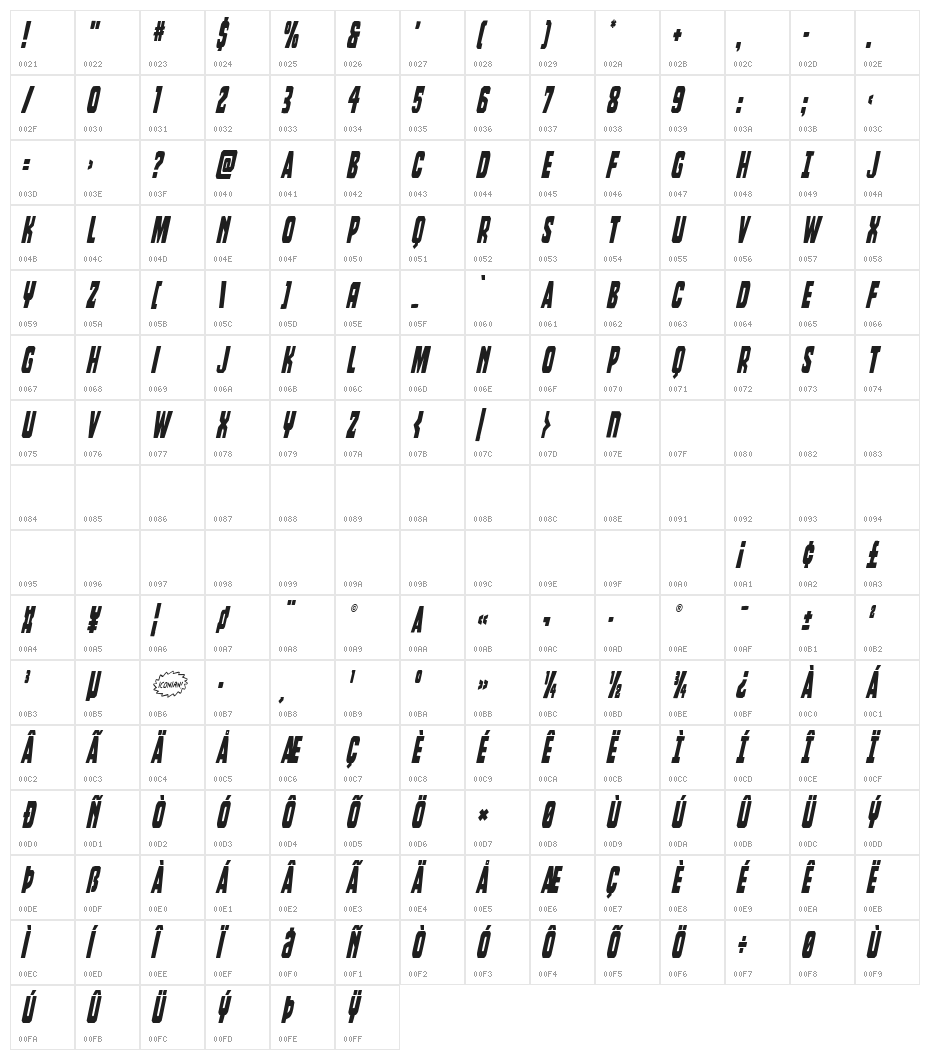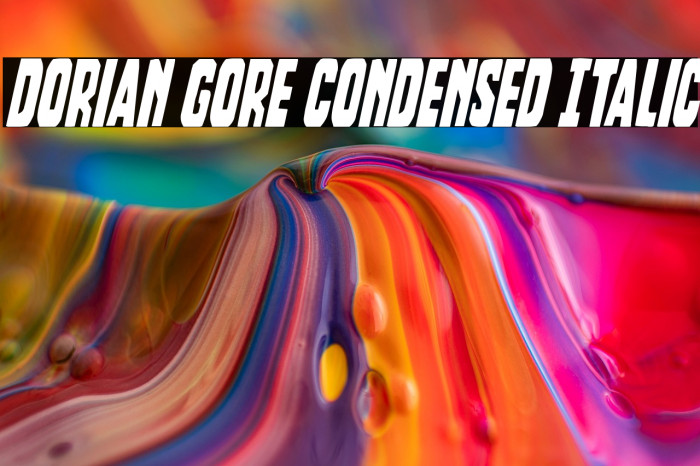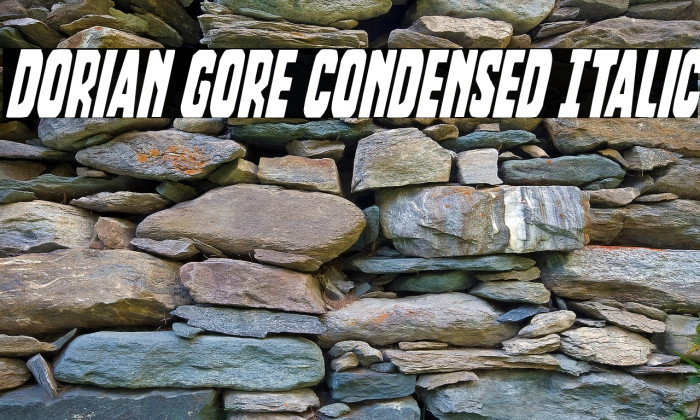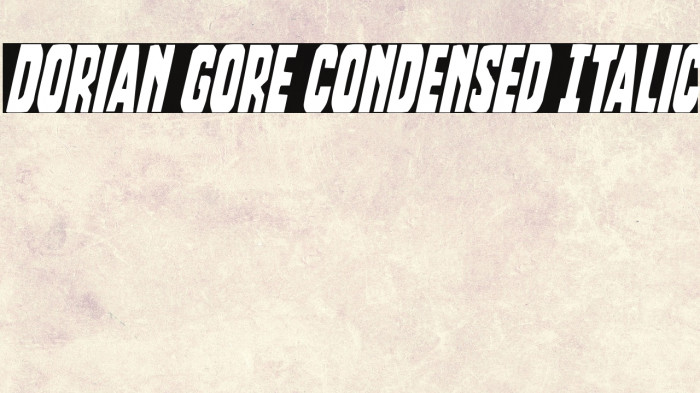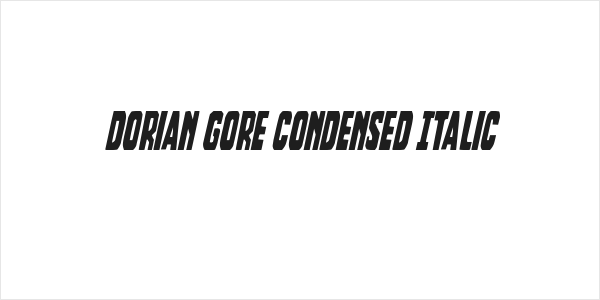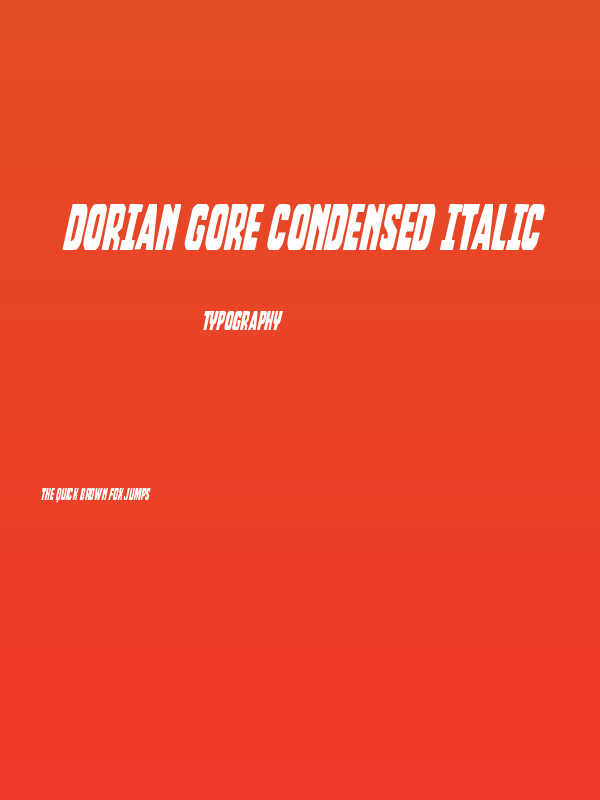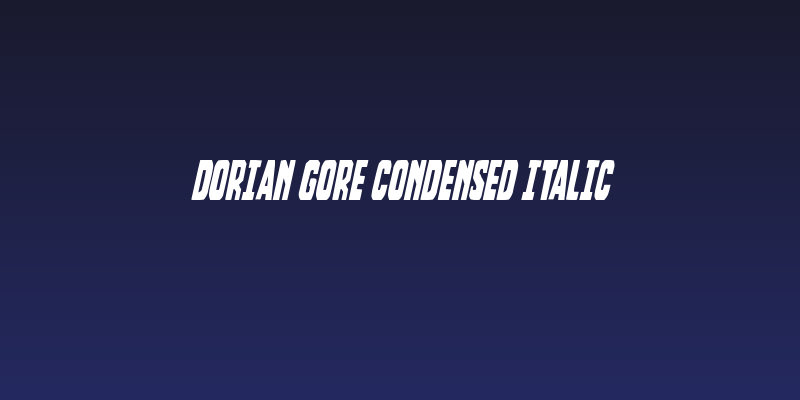
Dorian Gore Condensed Italic Font
Dorian Gore Condensed Italic Description
This font features a bold and dynamic style with a condensed and italicized form, giving it a strong and impactful presence. The characters are tightly spaced, enhancing its compact appearance. The strokes are thick and consistent, providing a sense of strength and stability. This font is designed to stand out, making it ideal for attention-grabbing headlines or titles. Its italic slant adds a sense of motion and urgency, perfect for dynamic and energetic designs. The overall style is modern and assertive, suitable for projects that require a bold statement.
| Proposed Projects | Ideal for use in headlines, posters, advertising, and branding projects where a strong impact is needed. |